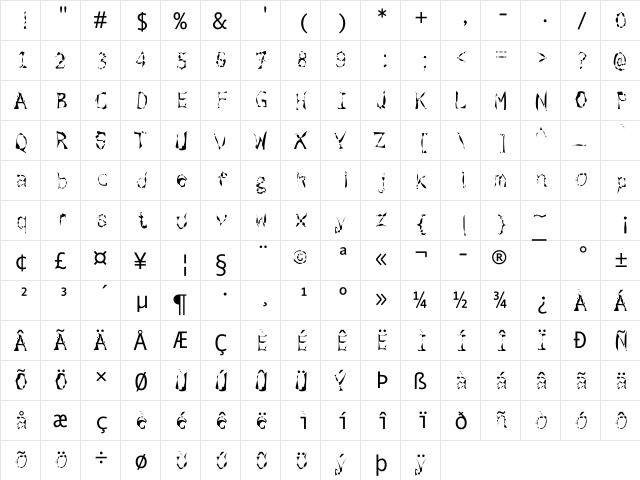
cyclical burnout one normailty
Design Context for cyclical burnout one Typeface
cyclical burnout one is a composed and adaptable typeface that performs quietly and consistently across a wide range of design contexts.